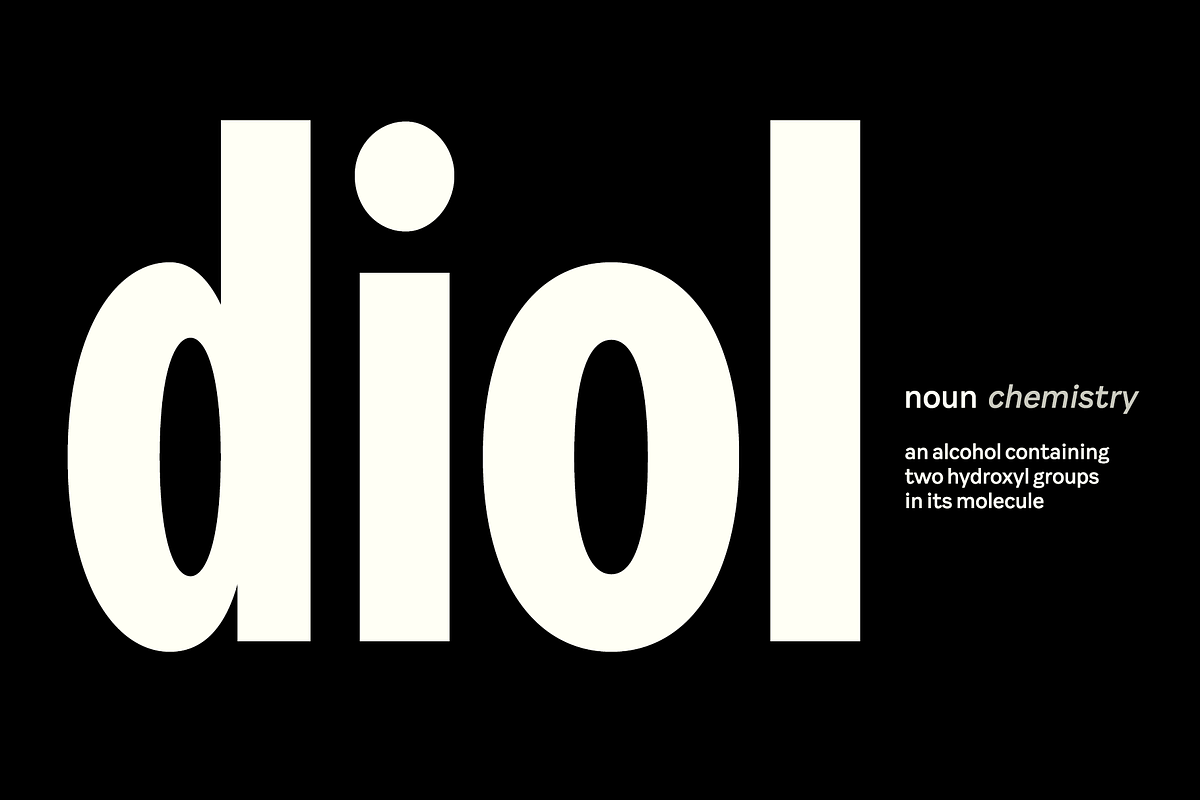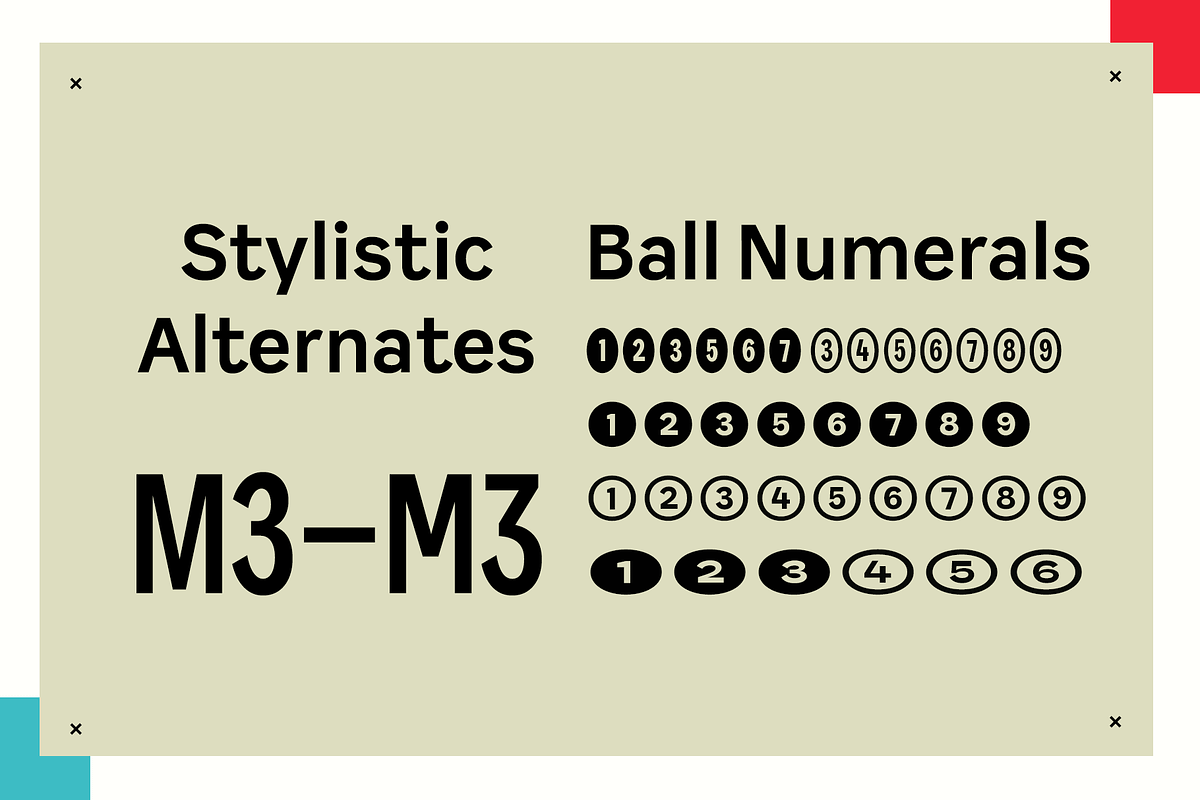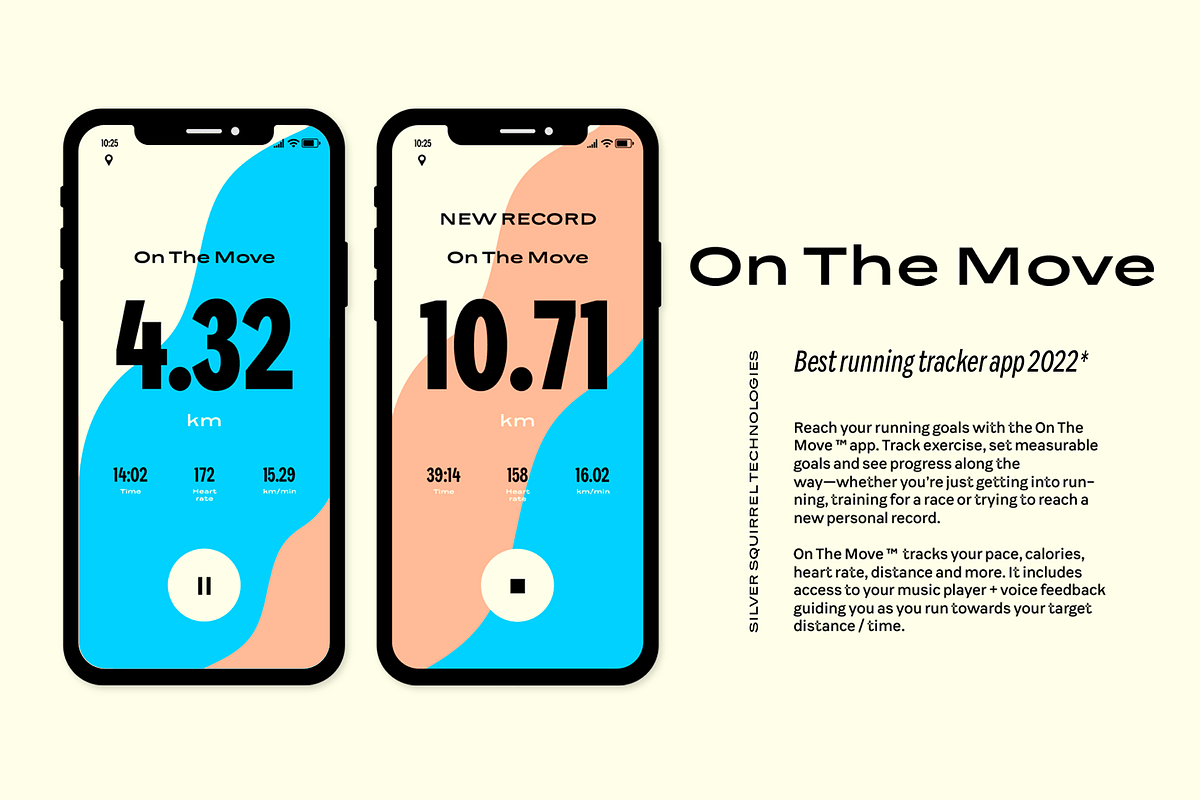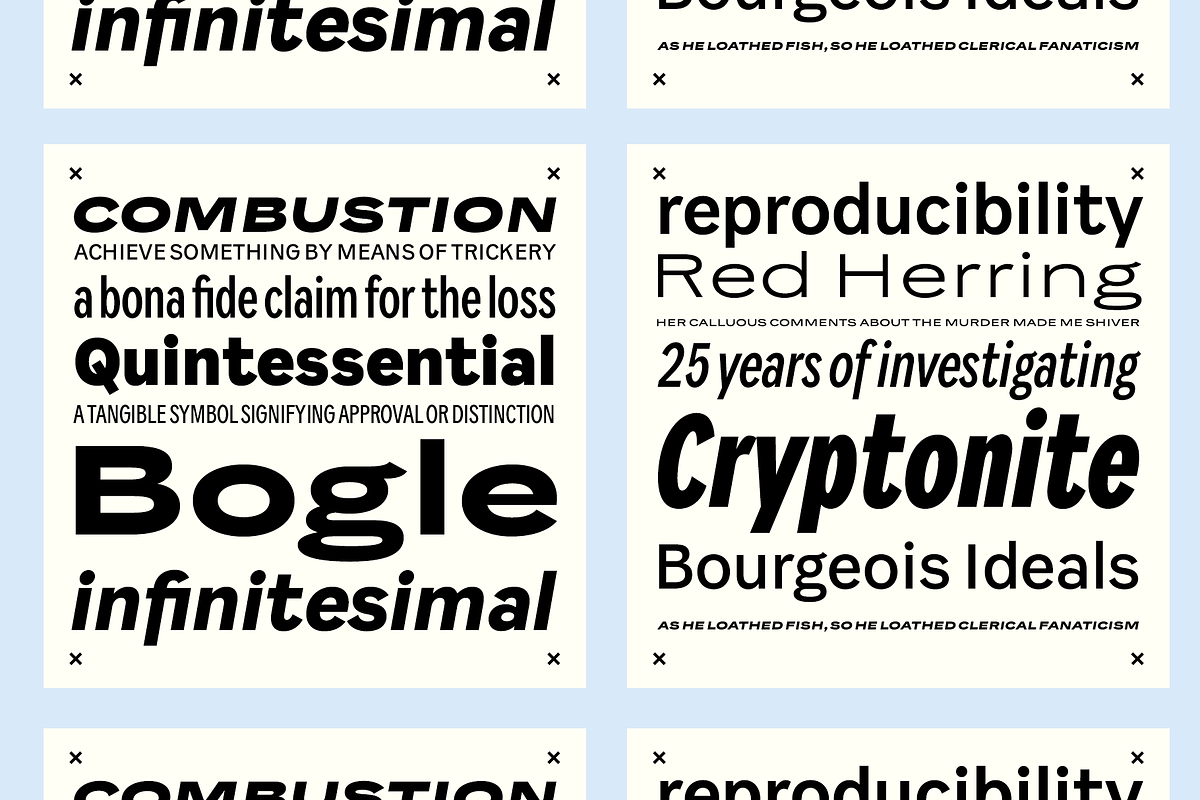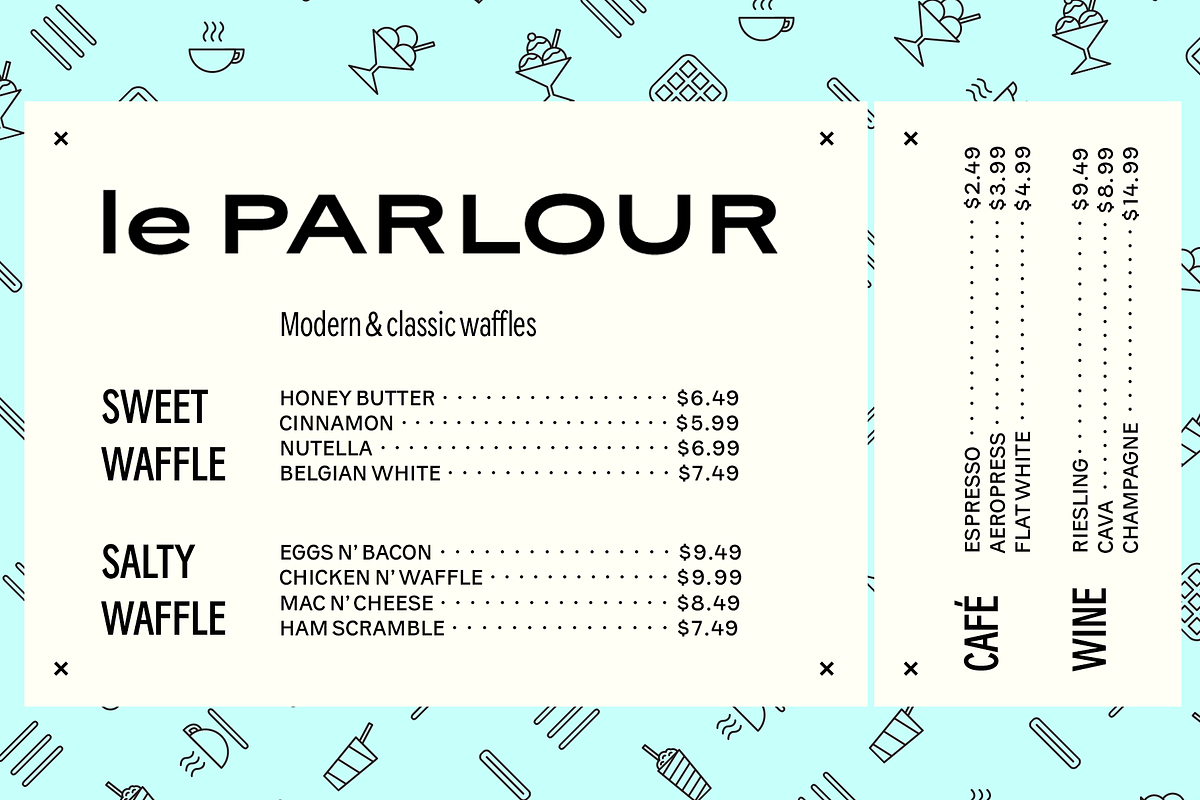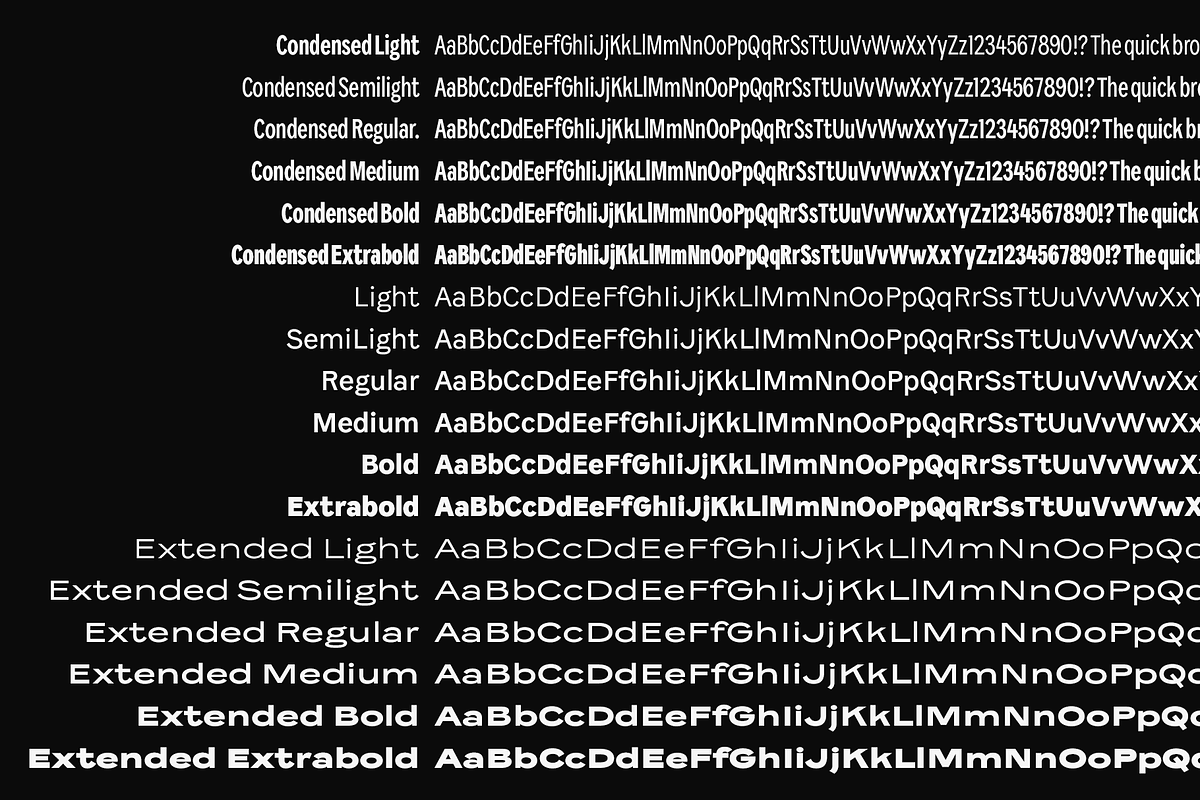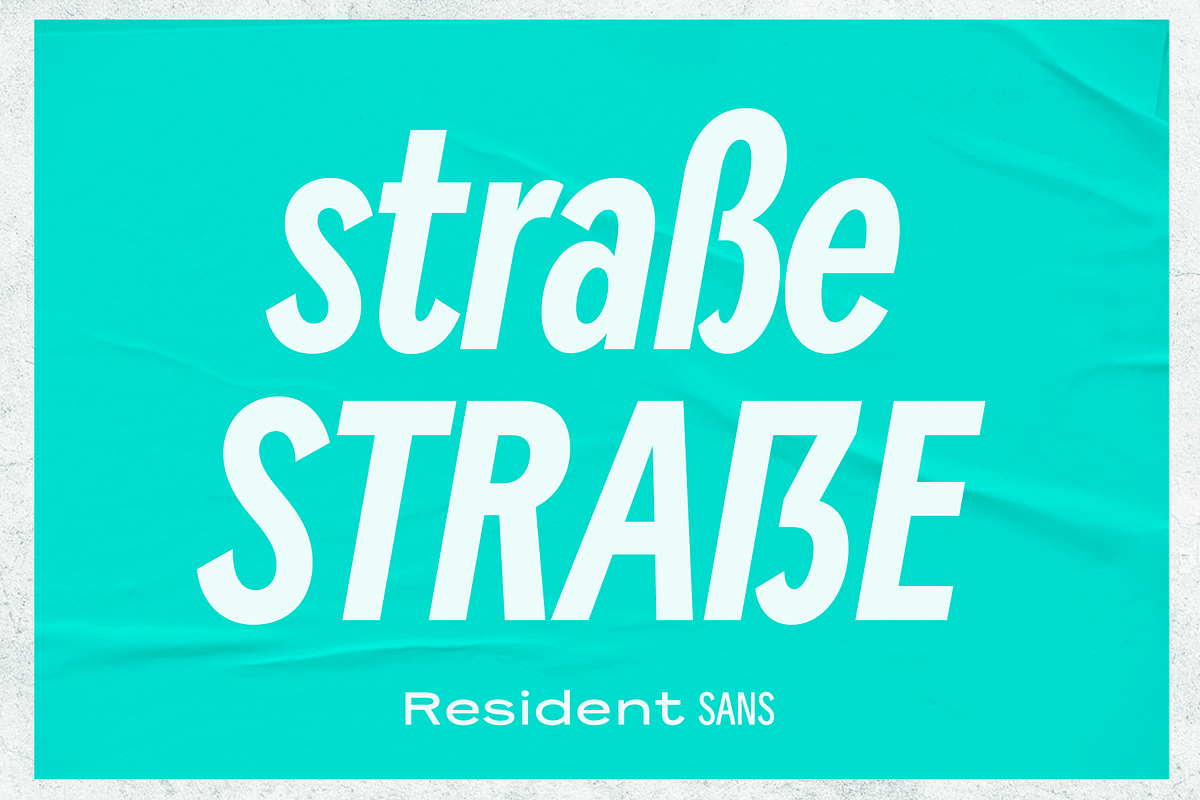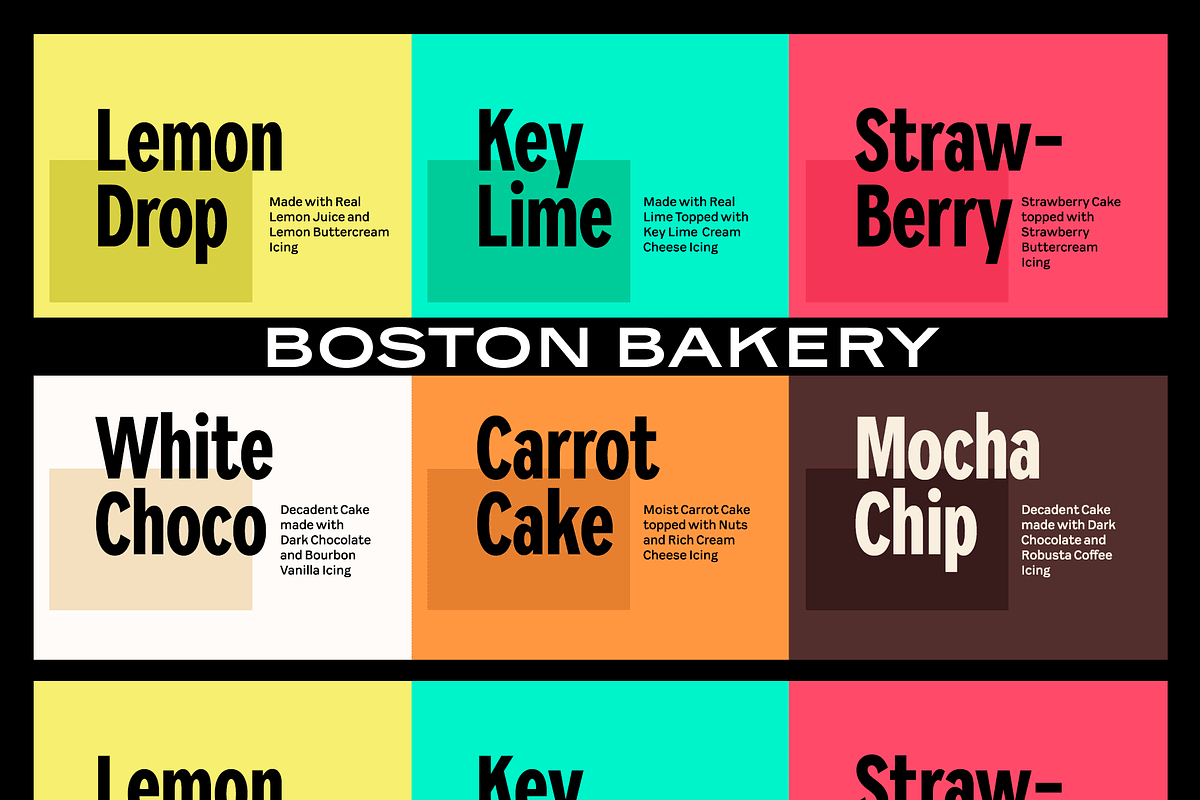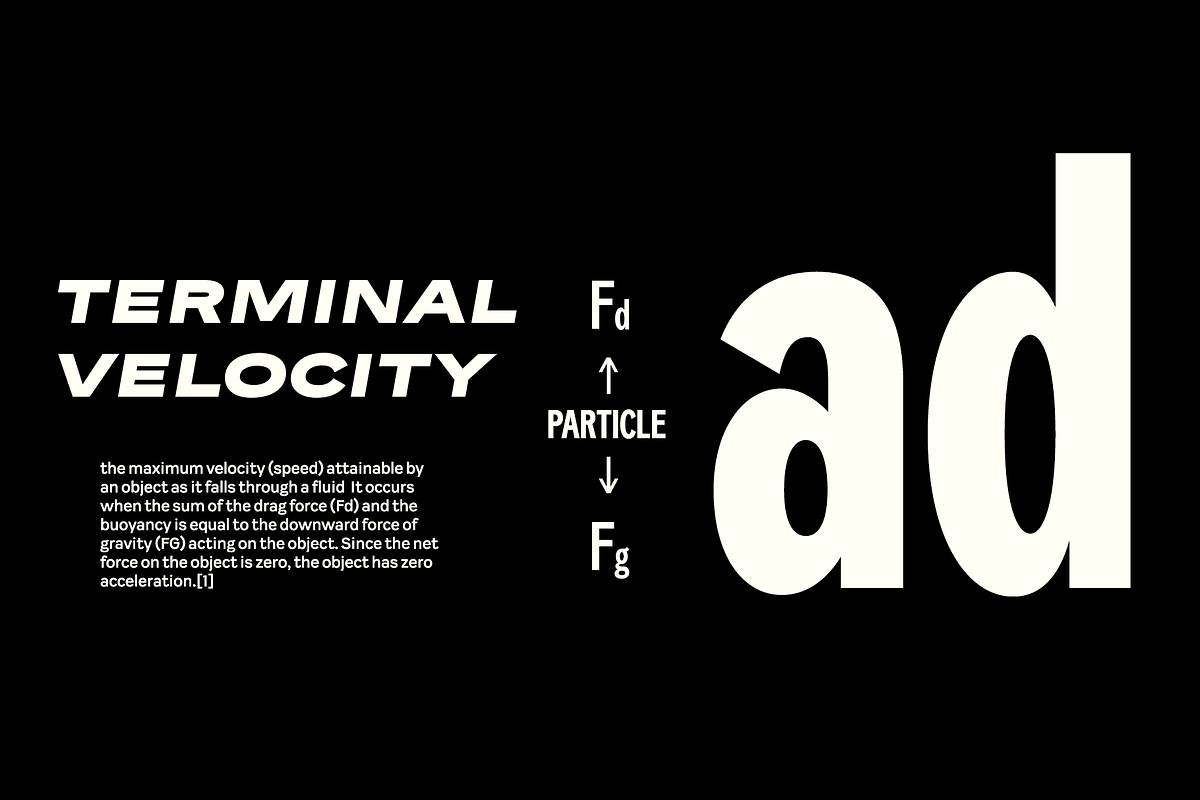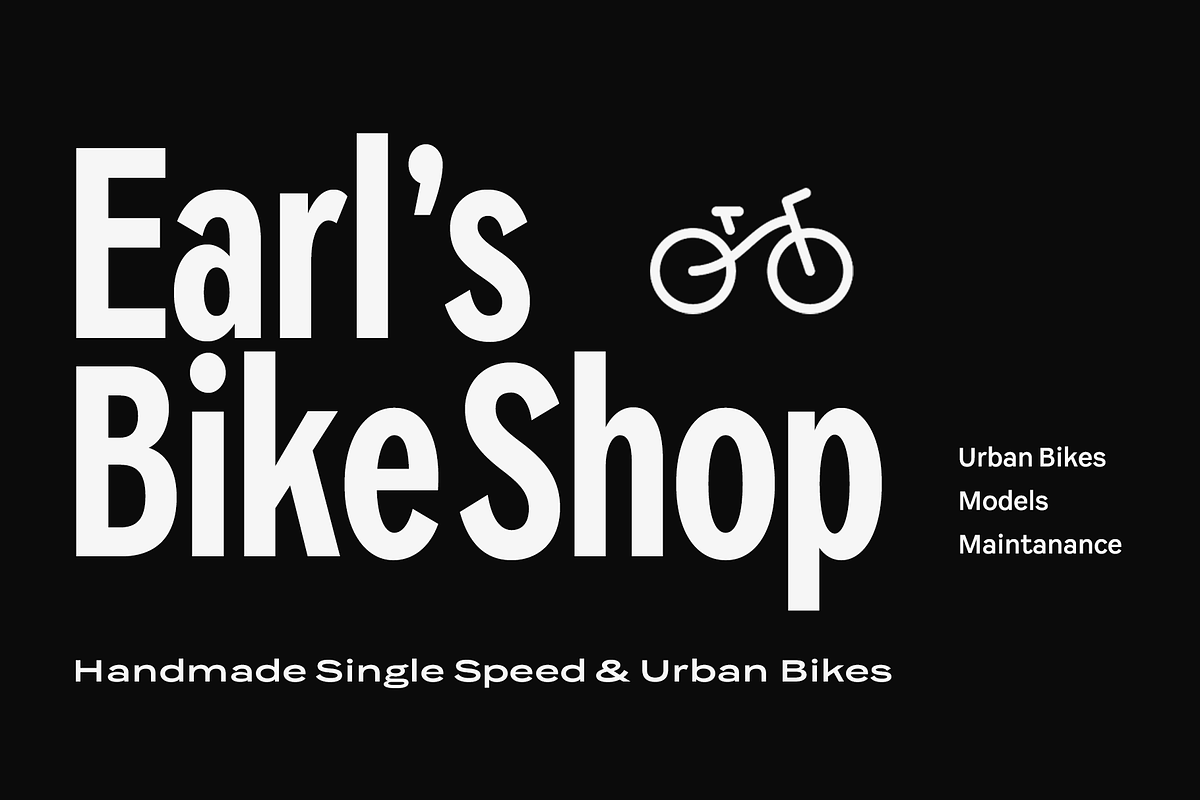
Resident Sans Serif
Do you need a true, reliable workhorse font family? One that can cope with the most diverse typographic challenges? Like a good citizen, Resident Sans is flexible, resilient and adaptable. It carries out everyday chores without hesitation and, if necessary, stretches to typographic feats – from easy-to-read body copy to impressive titles and small details. There are many types of Residents: members can be found from narrow and slender to thick and wide individuals. Even though design wise, Resident is universal, it has plenty of character and personality. In terms of its characteristics, the letter family meets modern requirements: there are numerous number styles and alternative versions of some characters are available.